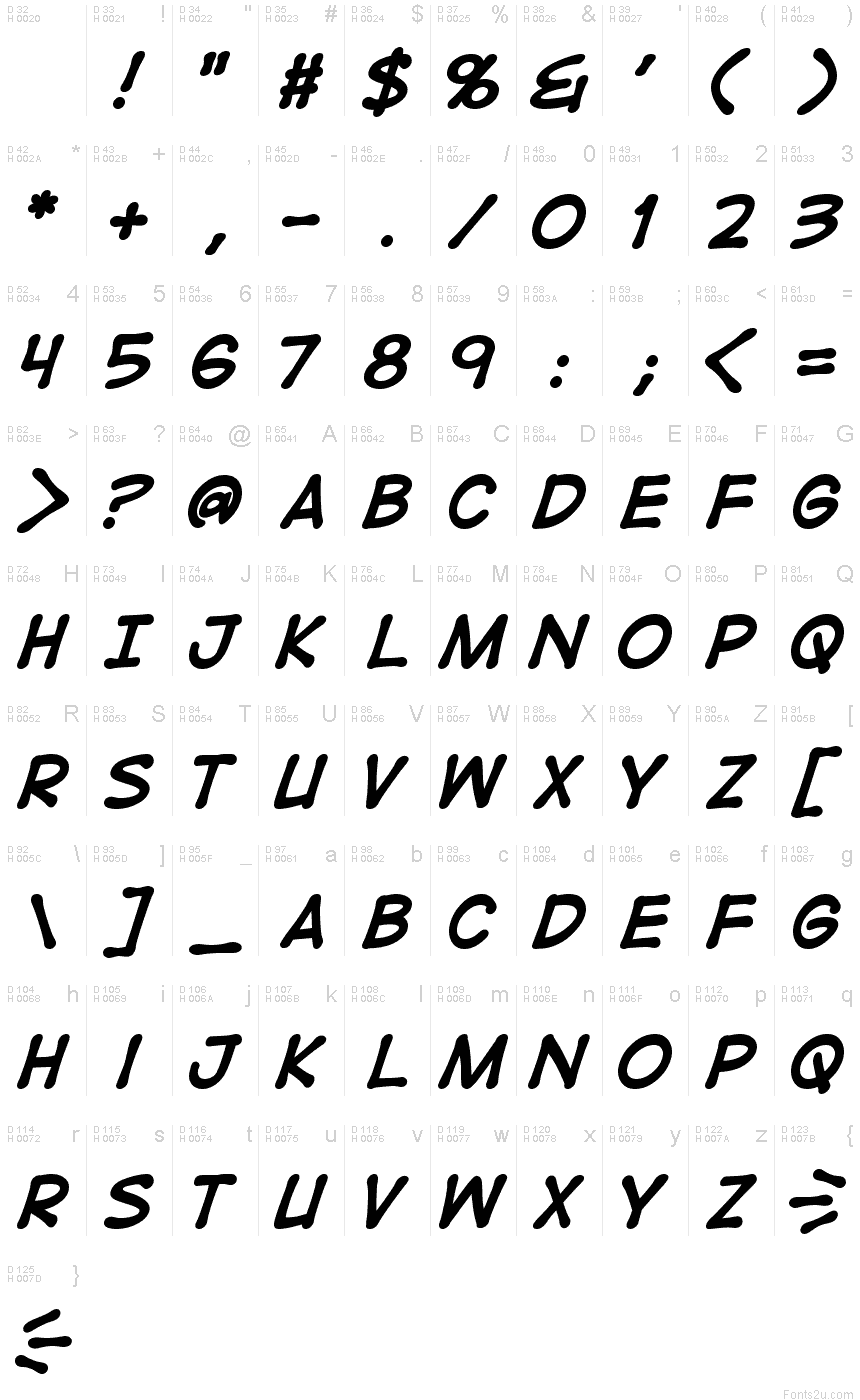
DigitalStrip Bold
Digital Strip Bold font by Nate Piekos of Blambot is a free comic display typeface that feels like ink whipped across a page in one confident motion. Heavy strokes, a fast forward slant, and rounded edges give it that hand-lettered, Saturday-morning energy without sacrificing clarity. As part of the DigitalStrip family, it pulls off a rare trick: loud, animated attitude that still reads cleanly at a glance.
This free font shines on webcomic titles, speech balloons, action sound effects, kids’ book covers, posters, and playful branding that needs a punchy, illustrated vibe. The rhythm of the letters creates a natural “whoosh” that pulls the eye through panels, thumbnails, and banners. Using DigitalStrip Bold alongside a simple sans serif for captions or UI text keeps things readable while letting the comic voice stay front and center.